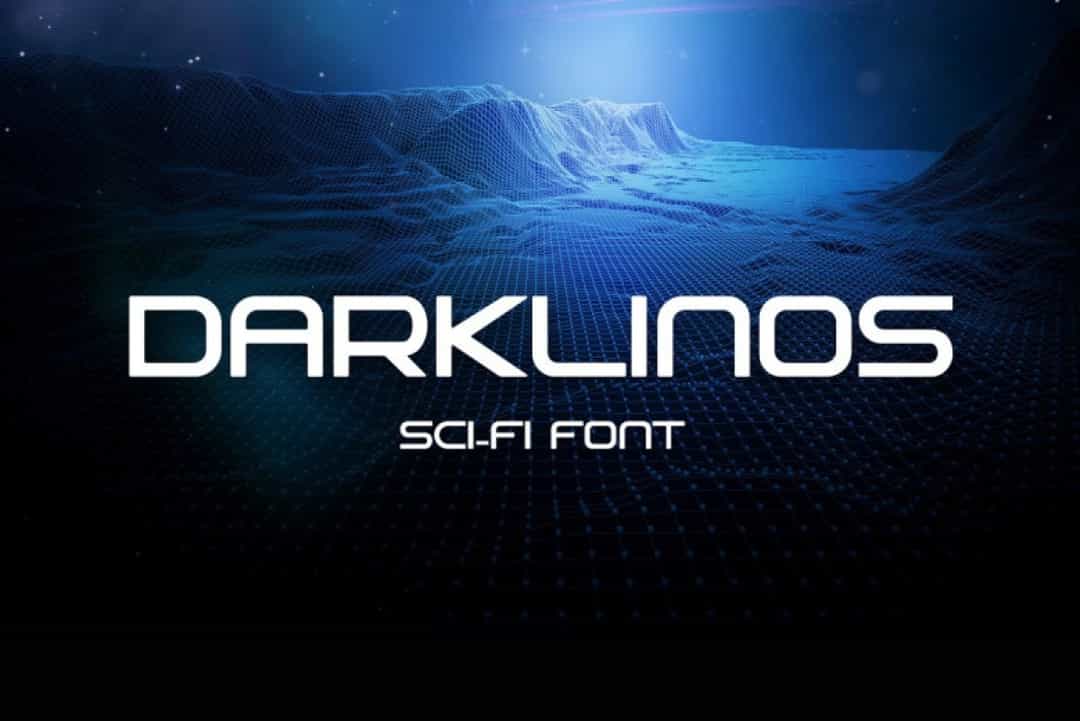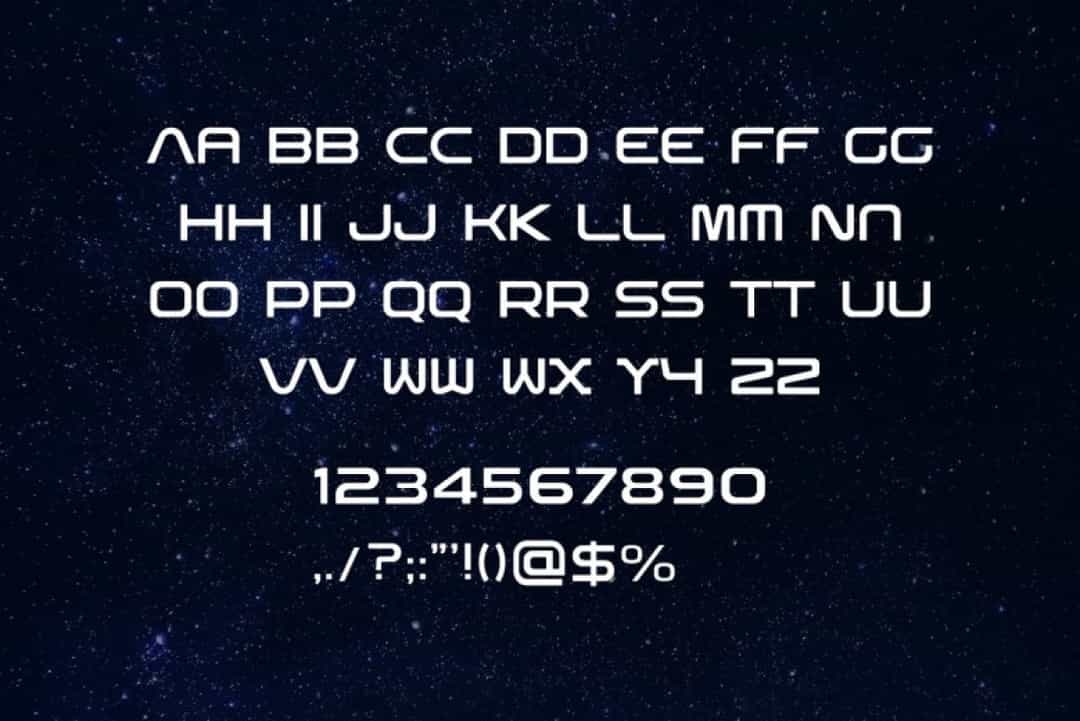
Darklinos is a sci-fi display font which exudes elegance, beauty and modernity. Perfect for use across a range of applications such as stationary signatures and logos for weddings; stationary signatures; logos for weddings; signatures wedding; typography quote magazine, book covers, headers website clothing branding packaging design etc… Also suitable for branding related to fashion/edited designs that showcase both feminine and masculine qualities simultaneously.